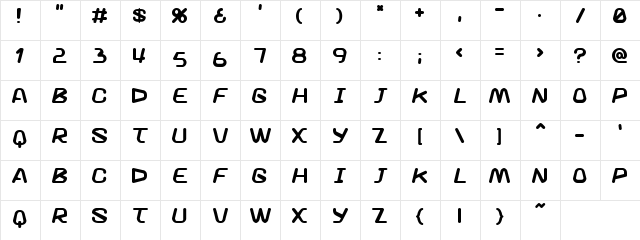
Burger Regular Free Font
Burger Regular
Designer: JupiterImages
Design Context for Burger
Burger is a composed and adaptable typeface that performs quietly and consistently across a wide range of design contexts.